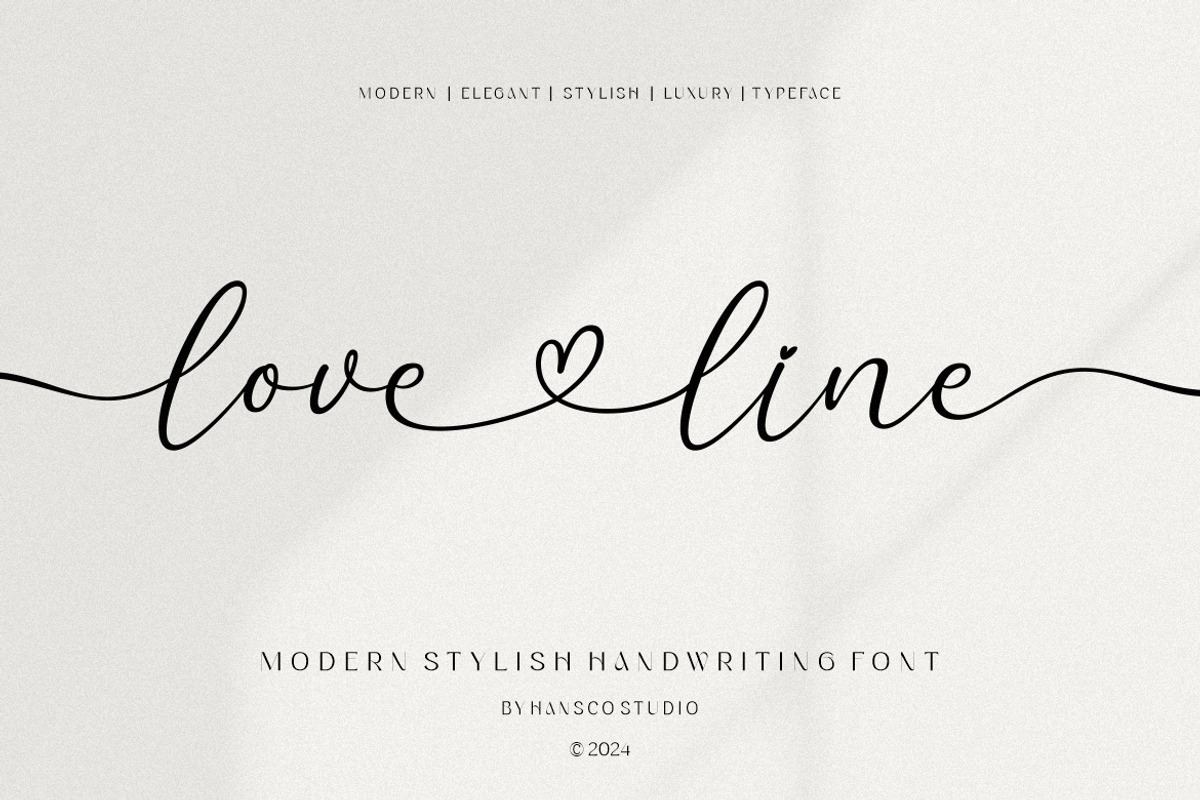
Love Line Handwriting Font Free Download is a sweet and delicate script typeface that captures the warmth and intimacy of handwritten love notes. Please note: you must purchase this font for commercial use, but you can test it through a free download. With its light strokes, flowing curves, and romantic personality, Love Line is perfect for wedding invitations, heartfelt quotes, branding, greeting cards, and personal journaling.
This font brings emotion and softness to your designs—ideal for projects that need to feel genuine, loving, and beautifully handwritten. Whether you're building a feminine brand or crafting meaningful content, Love Line Handwriting Font Free Download adds a tender, handwritten charm to every word. Fully compatible with Adobe Illustrator, Photoshop, Canva, and more, it's easy to use across digital and print platforms. Download it today for personal use and let Love Line add a touch of romance to your typography.